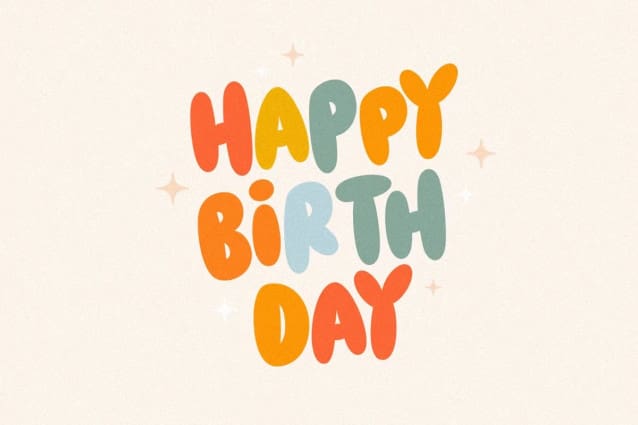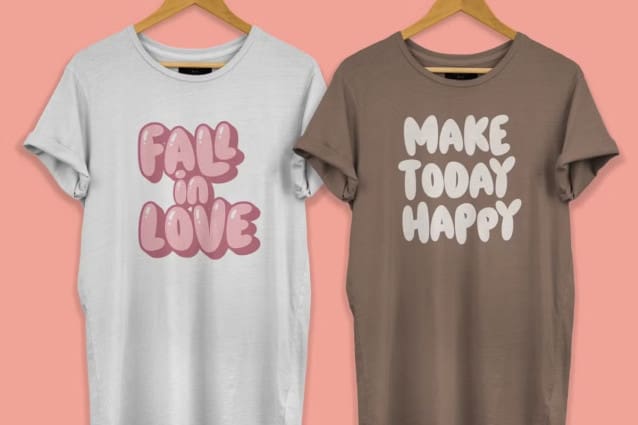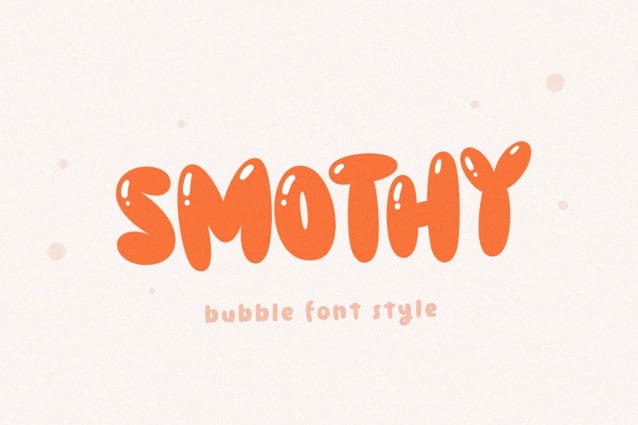
Smothy Bubble Font
Smothy Bubble Font is a cute and fun display font with bubble style. You will get three types of fonts in this pack, Regular, Bubble and Shadow version. Use this display font to add that special bubble touch to any design idea you can think of!
Very suitable for logotype, Stickers, Packaging design, Cricut Project, headlines, brand identity, t shirt or apparel industry, posters, magazines, books, YouTube, Instagram, websites, or any of your creative design projects.